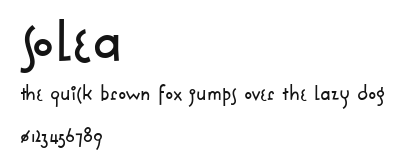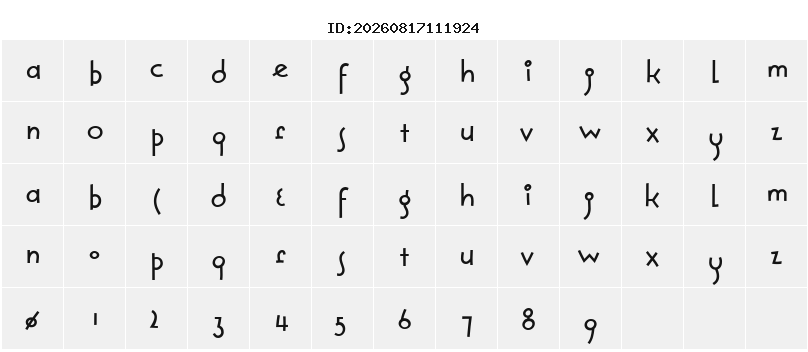
Solea Preview
• Font Name: Solea
About Solea.ttf
Solea.ttf is a modern, elegant sans-serif font designed for ultimate readability and visual harmony. Perfect for branding, headlines, web design, and print materials.